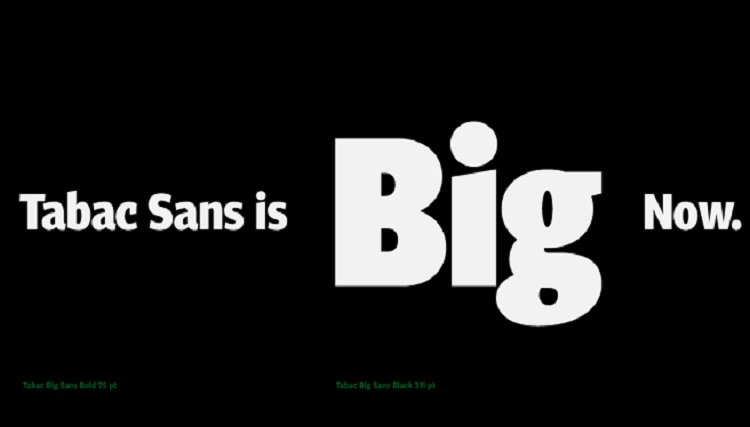
Tabac Big Sans Font Family
Those who have grown tired of text typefaces insensitively blown up to the size of a poster or a building facade should from time to time try out extreme display styles which are designed precisely for this purpose.